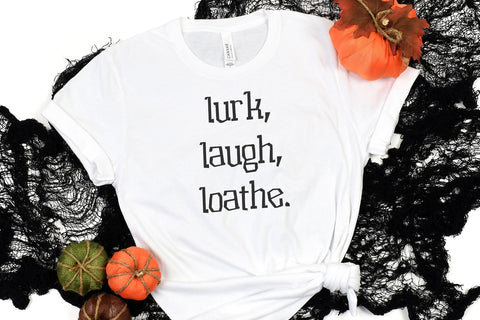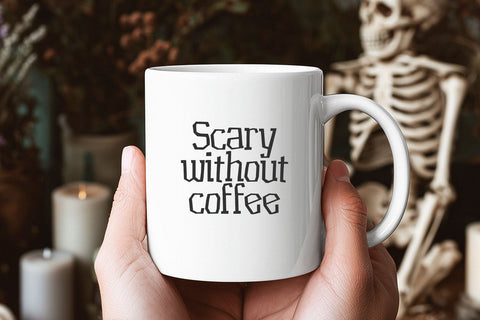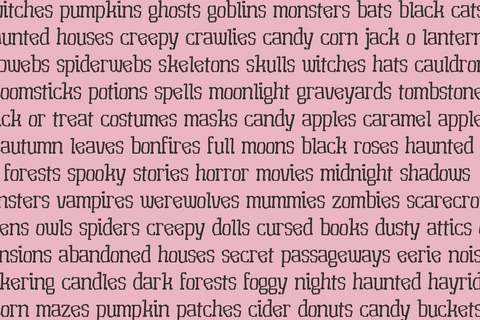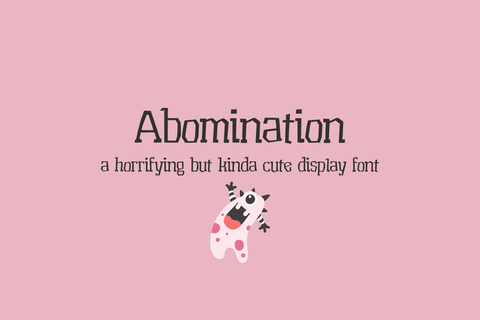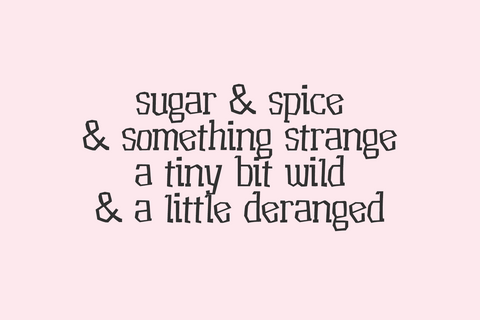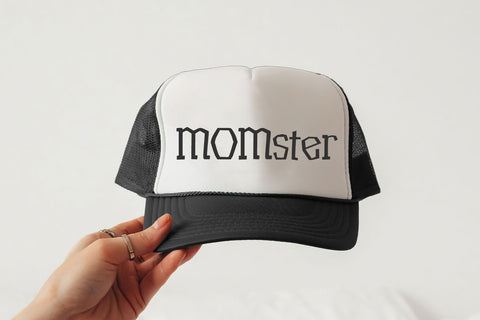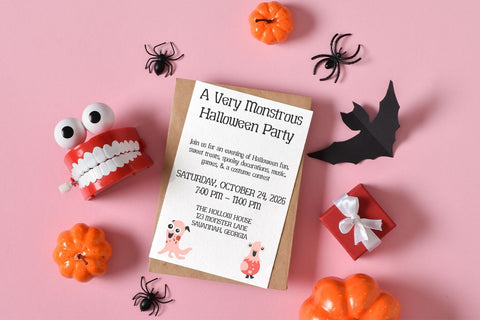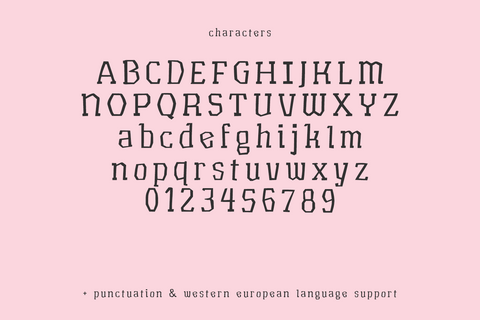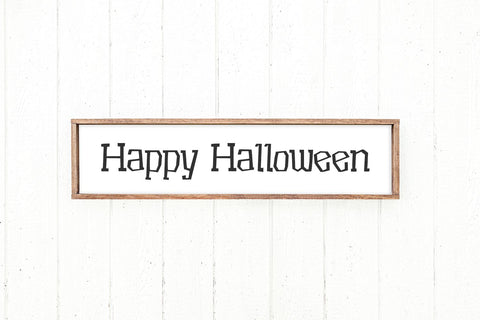
Abomination Display Font
Abomination is a display font. A little boxy and irregular, it’s a pretty cute font that can be used for a variety of Halloween-themed applications: children’s Halloween designs, shirts, stickers, mugs, and more. Abomination has clean lines, so it’s a great fit for vinyl cutting machines like Cricut and Silhouette. Though it was designed with Halloween in mind, Abomination would also be a good fit for retro beachy and surf style designs like tiki signage, restaurant branding, and more.
Abomination includes:
- full upper + lowercase characters
- numbers + punctuation
- Western European language support - English, French, Spanish, Portuguese (Brazil), Portuguese (Portugal), Italian, German (Germany), German (Austria), Dutch, Danish, Swedish, Norwegian (Bokmål and Nynorsk), Finnish, Icelandic, Irish, Welsh